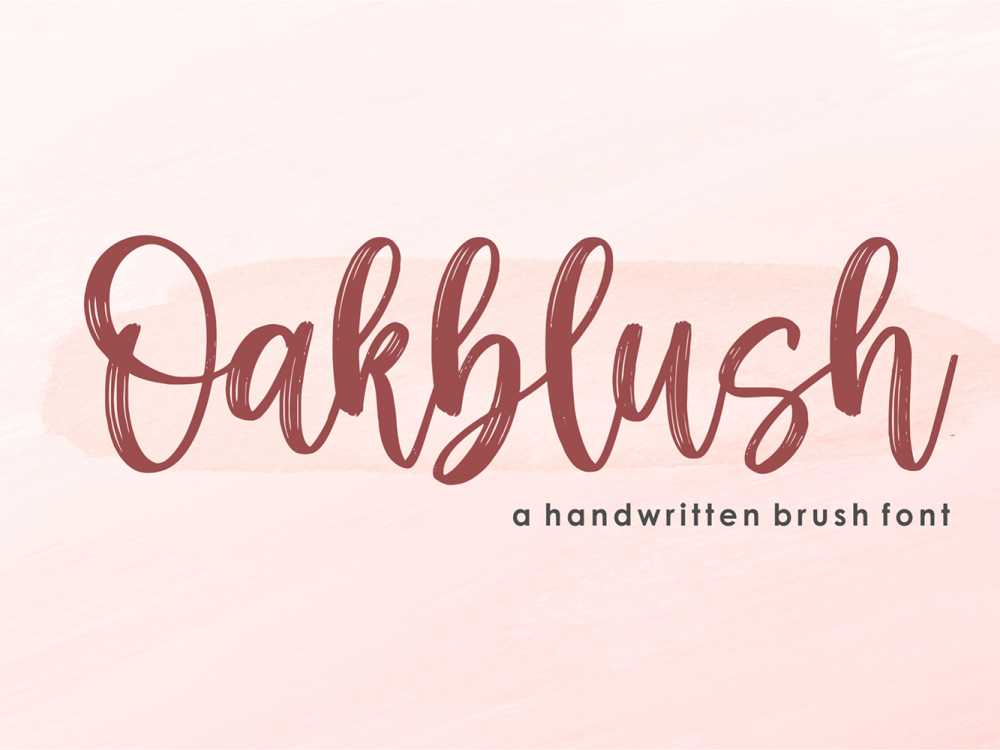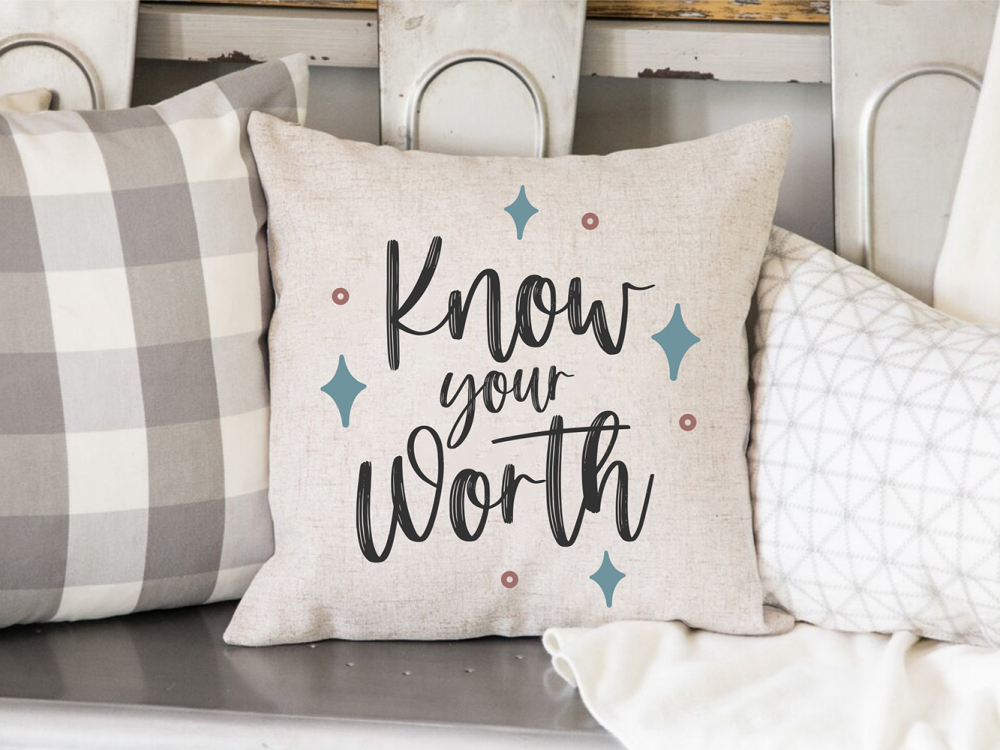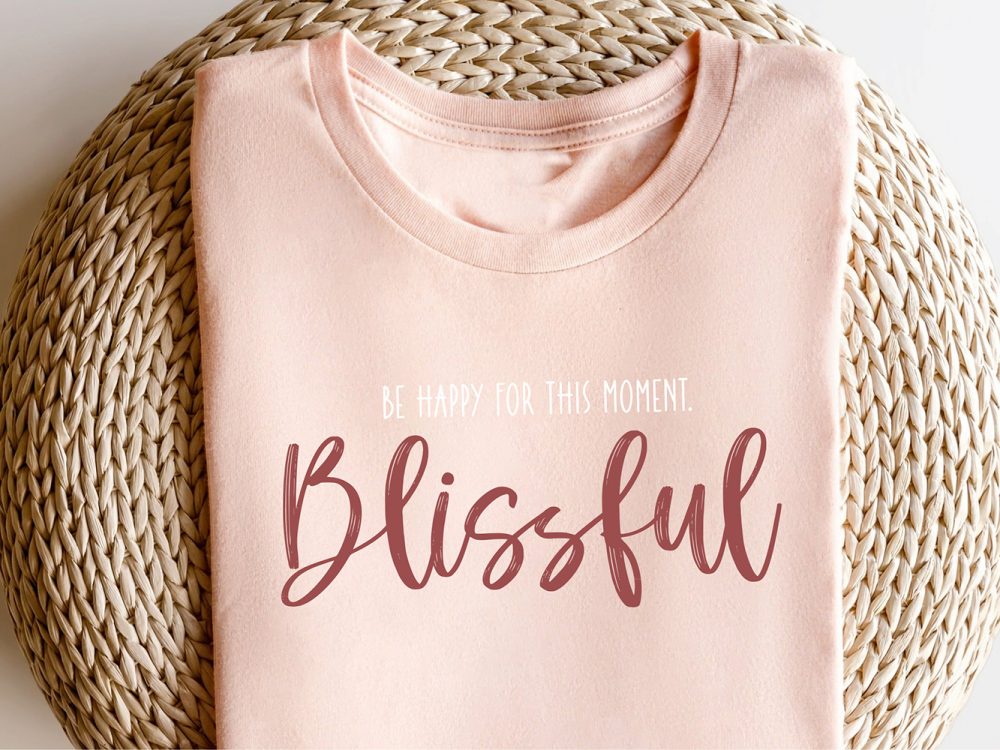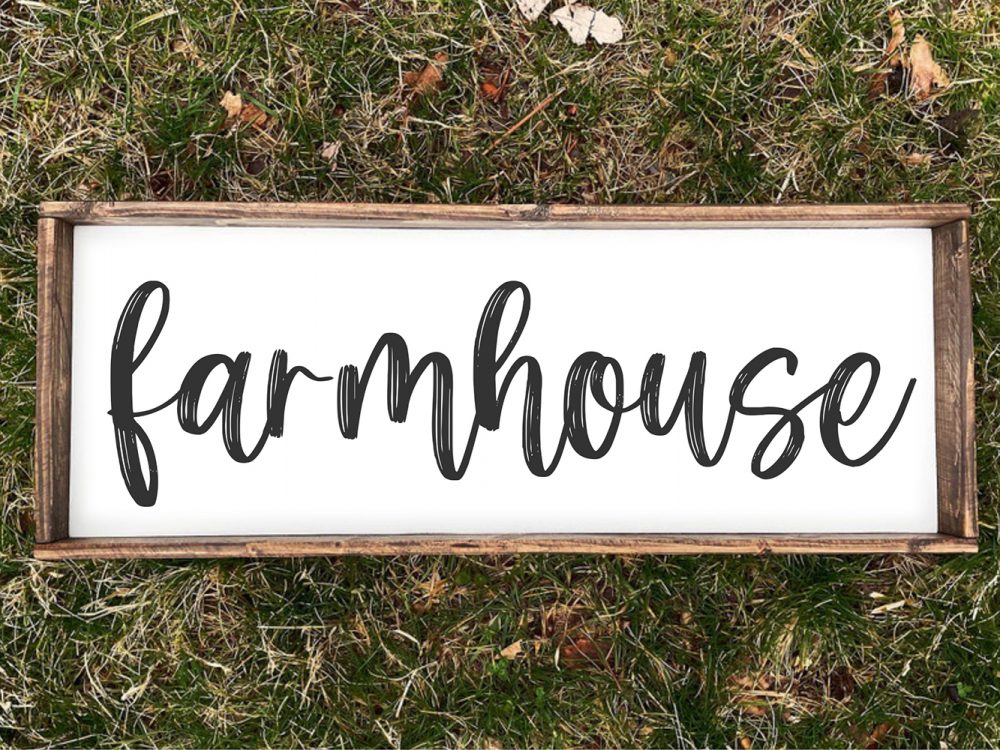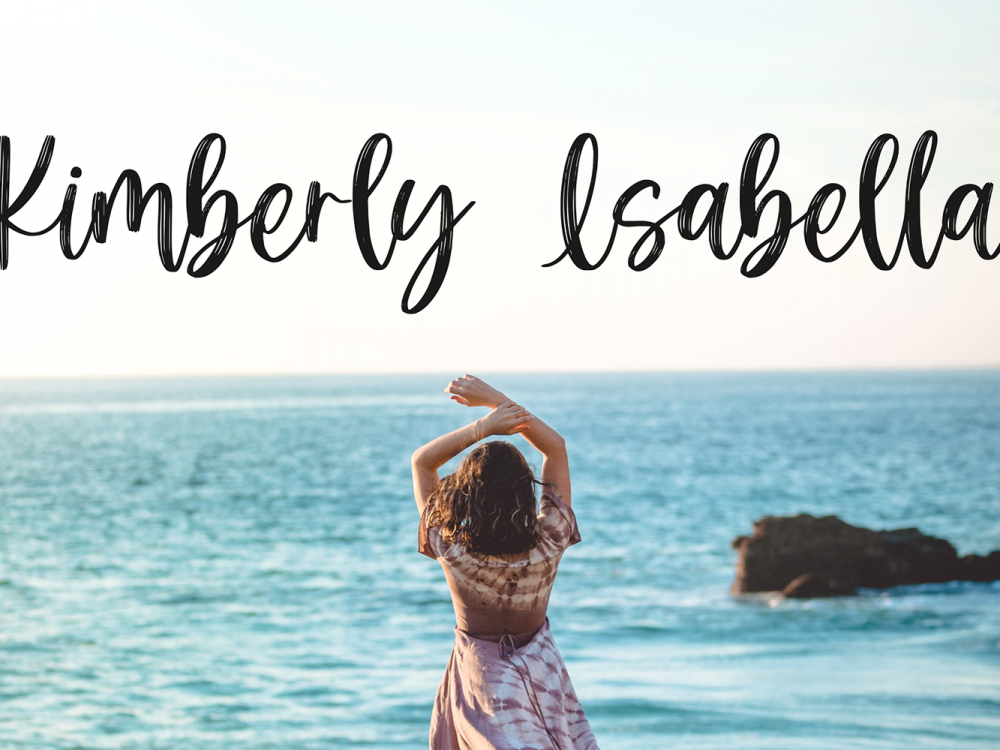
Oakblush Free Font
Oakblush Free Font is an interesting beautiful handwritten font that simulates detailed brush writing and is very suitable for creating various design projects that require a scripted font. These can be posters, invitations, cards, branding, flyer prints, and more. If you wish to access more features and use them for commercial work please buy the full version.